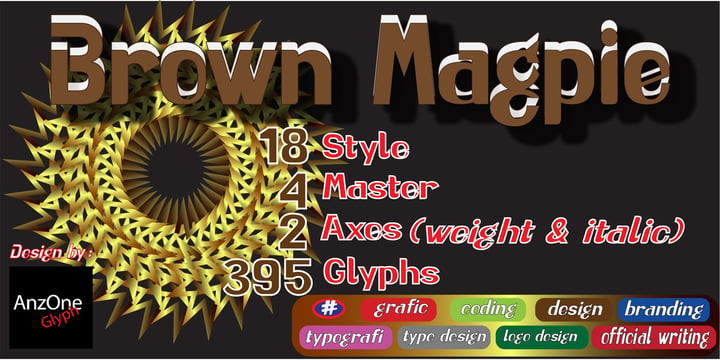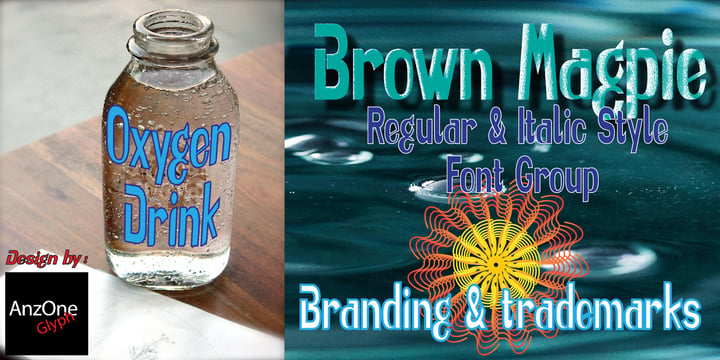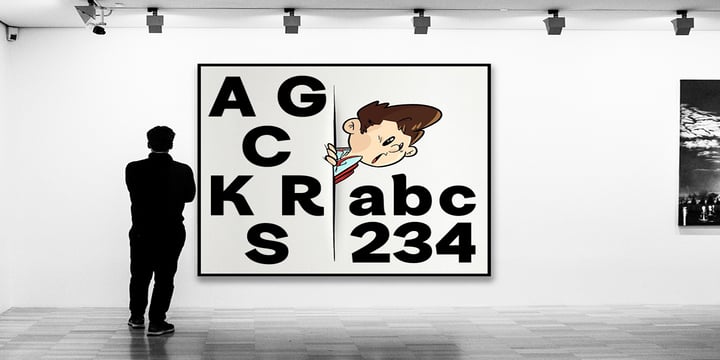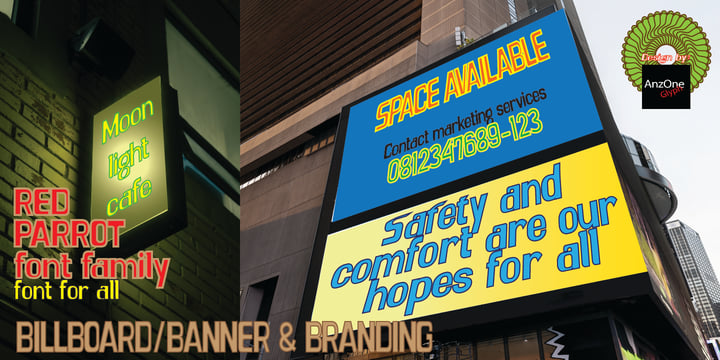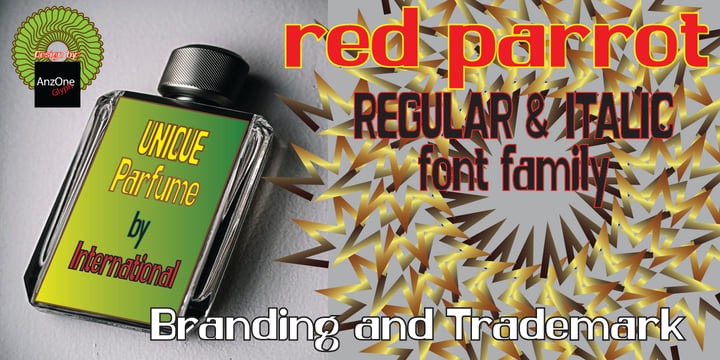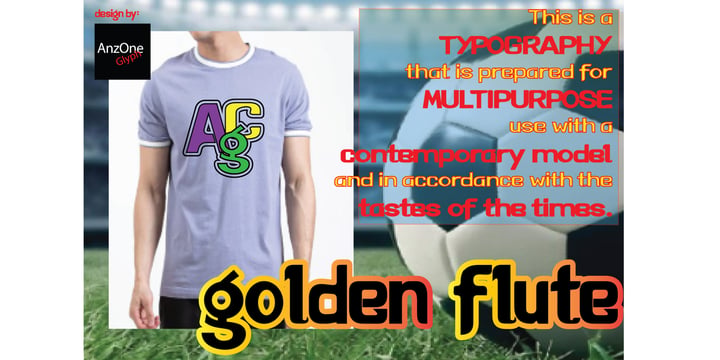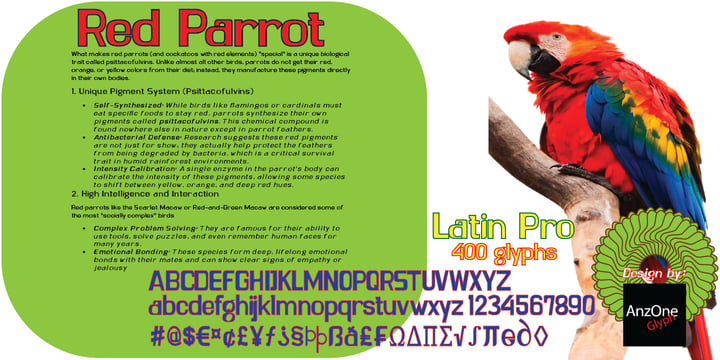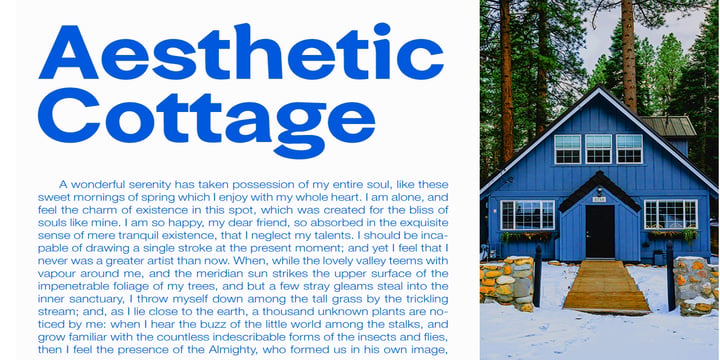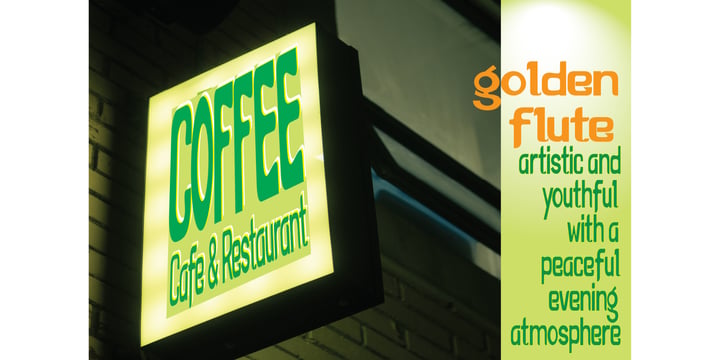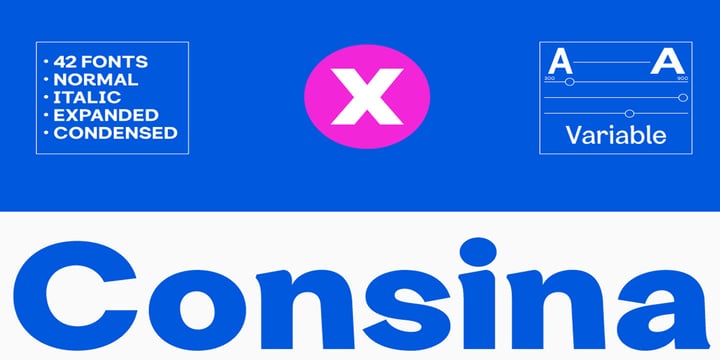
Anzone Glyph Ultimate Creative and Corporate Bundle
Get the ultimate font collection from Anzone glyph! This mega bundle is carefully curated to fulfill all your design needs, balancing corporate professionalism with modern, playful aesthetics.
Inside this bundle, you will get 4 unique font families with a grand total of 88 versatile styles:
Consina (43 Styles): A powerful and clean neo-grotesque superfamily, perfect for corporate identity, app interfaces (UI/UX), and heavy editorial layout.
Red Parrot (18 Styles) & Brown Magpie (18 Styles): Creative display fonts loaded with personality, ideal for eye-catching packaging, apparel, and modern logo designs.
Golden Flute (9 Styles): A charming artistic font to add a handcrafted and organic feel to your branding projects.